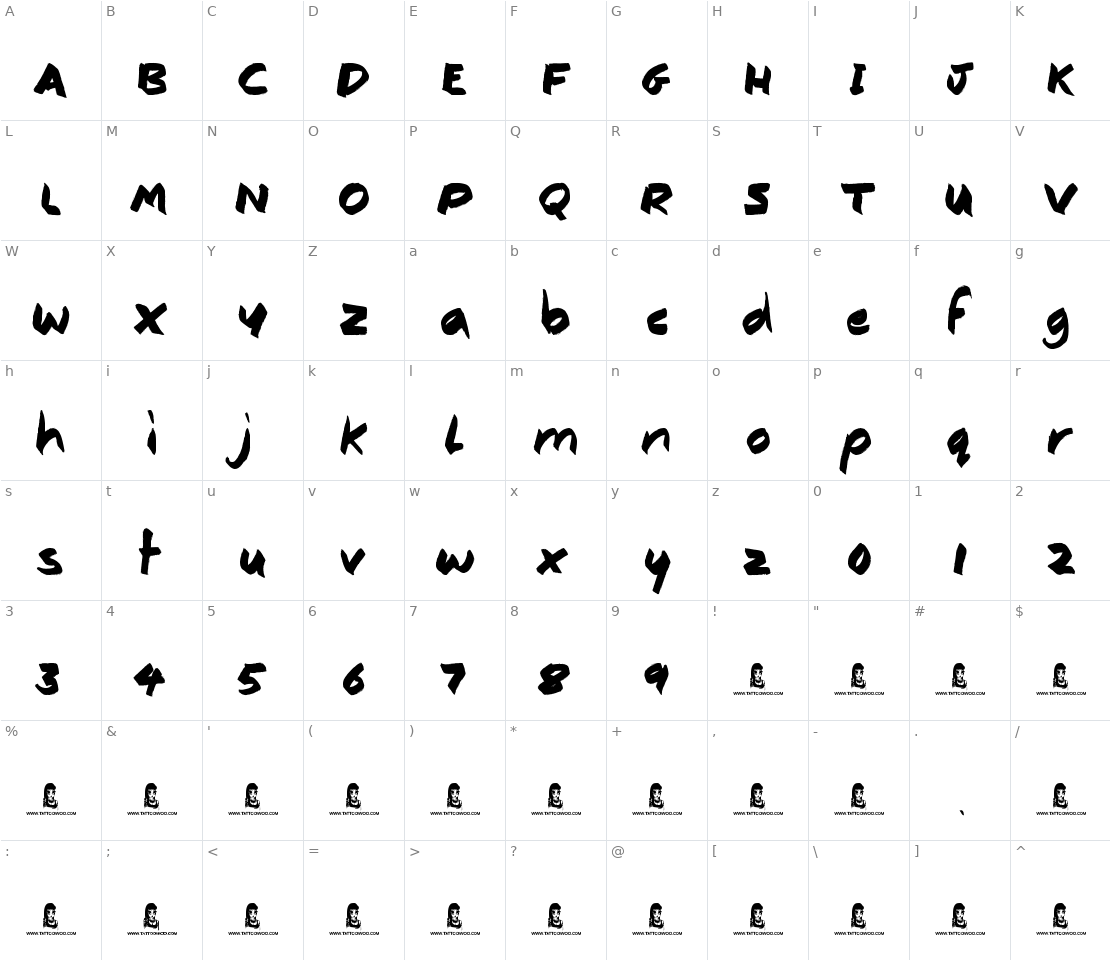
Consistency Measures
Consistency Measures is a bold, brush-style handwritten face from Jonathan S. Harris with thick, confident strokes that feel like someone went at it with a wide marker in a hurry. The lettering has a loose, playful energy that stays readable despite its casual slant and uneven baseline. A strong pick for headlines, packaging, and informal branding where you want something that feels spontaneous and human.